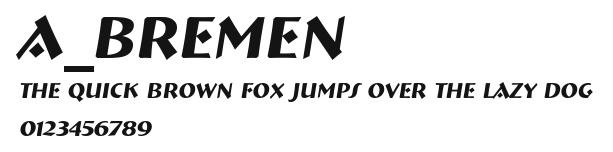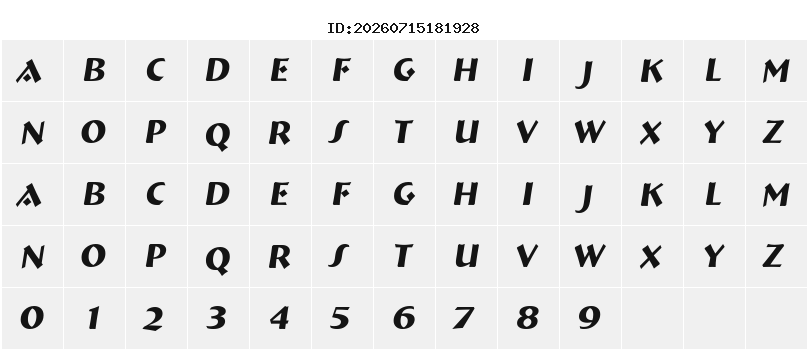
a_Bremen Preview
• Font Name: a_Bremen
• Font ID: Macromedia Fontographer 4.1 a_Bremen Italic
• Full Font Name: a_Bremen Italic
• Version: Macromedia Fontographer 4.1 7.08.97
• PostScript Name: ABremenItalic
• Character Count: 193
About a_Bremen.ttf
a_Bremen.ttf is a modern, elegant sans-serif font designed for ultimate readability and visual harmony. Perfect for branding, headlines, web design, and print materials.